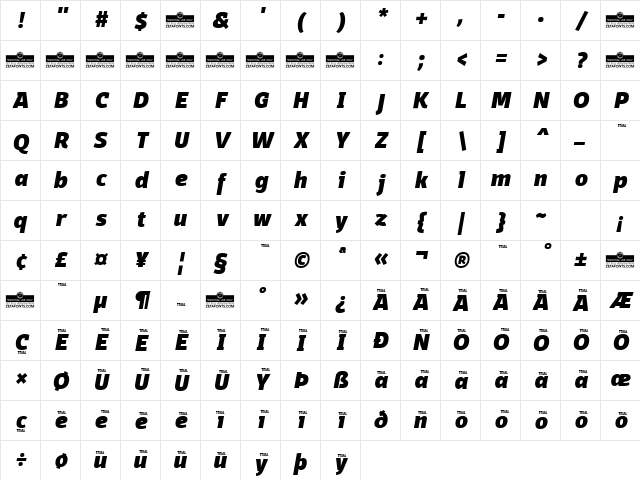
Domotika Trial Heavy Italic
Style: Heavy Italic
Foundry: Studio Kmzero
Designer: Cosimo Lorenzo Pancini
Domotika Trial Family
Design Context for Domotika Trial
Domotika Trial is a composed and adaptable typeface that performs quietly and consistently across a wide range of design contexts. The slanted form adds forward momentum and visual energy.
Pro Tip: Use Domotika Trial for emphasis, pull quotes, and subheadings where its slanted energy can add rhythm to the layout.